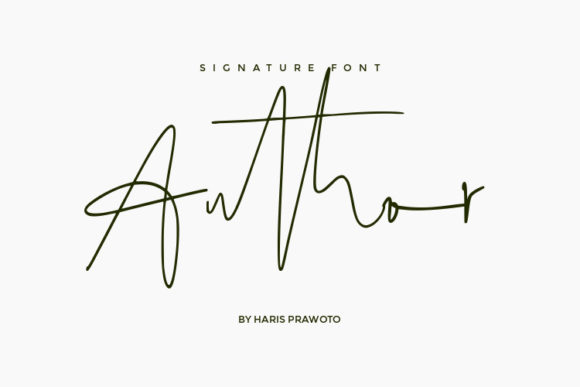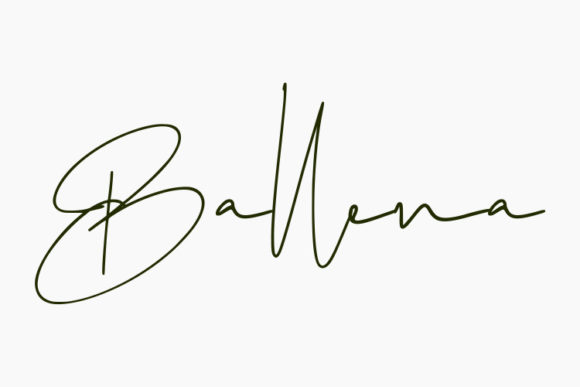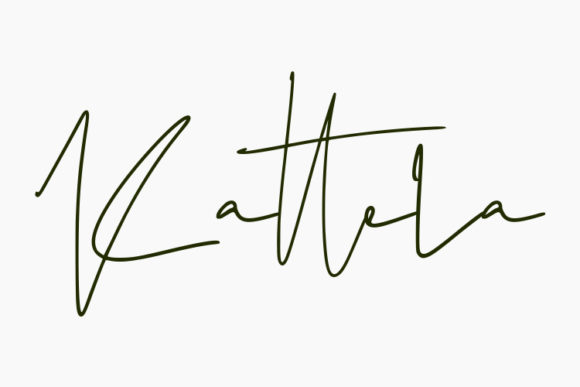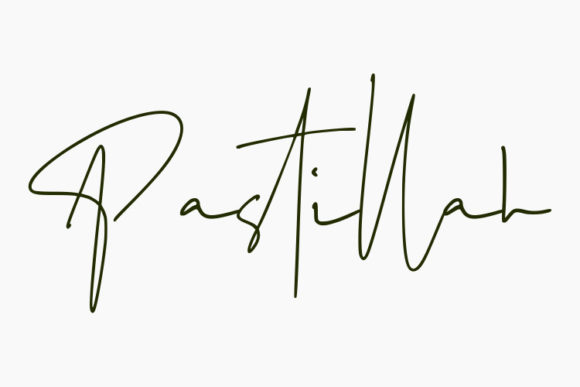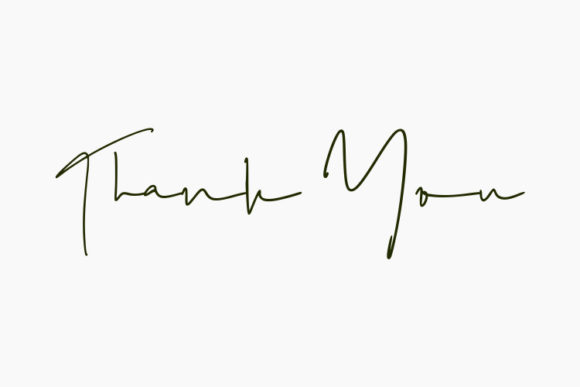
Author Font
About Author Font
Author is an incredibly elegant and timeless handwritten font. It is the best choice for creating eye catching logos, branding and quotes. Every letter has a unique and beautiful touch, which will make your design come alive!